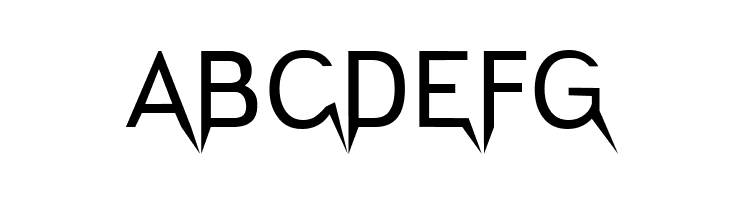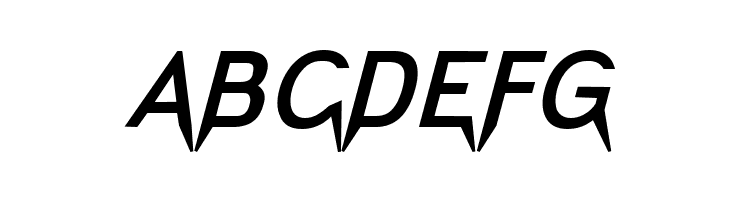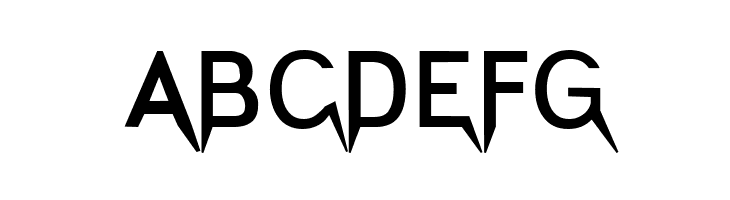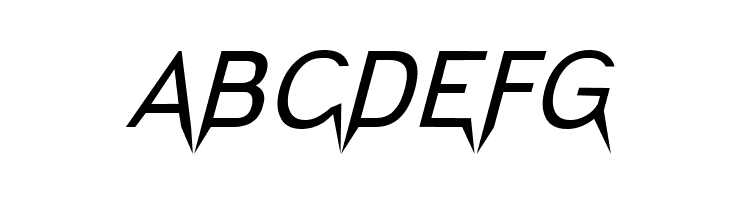
Vampetica-Italic Font
Font by
JamboFonts
A modern italic font with sharp, angular edges and a sleek, dynamic style.
Vampetica Font
Font by
JamboFonts
A modern, edgy font with sharp, angular elements and a bold style.
Vampetica-BoldItalic Font
Font by
JamboFonts
A bold, italicized font with sharp, angular features and dynamic style.
Vampetica-Bold Font
Font by
JamboFonts
A bold, angular font with dramatic accents and a modern edge.